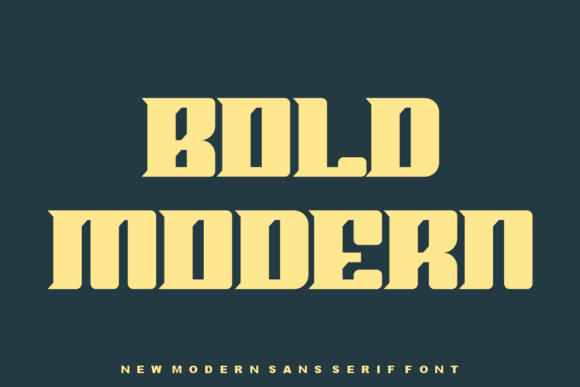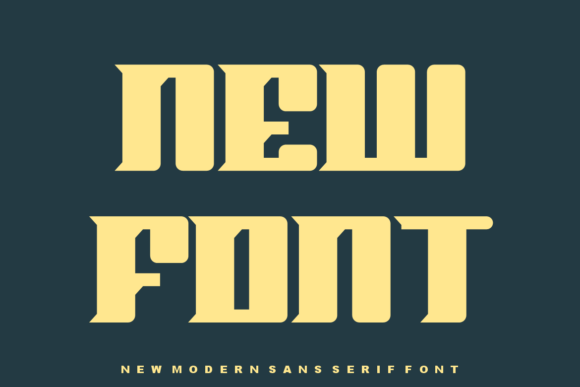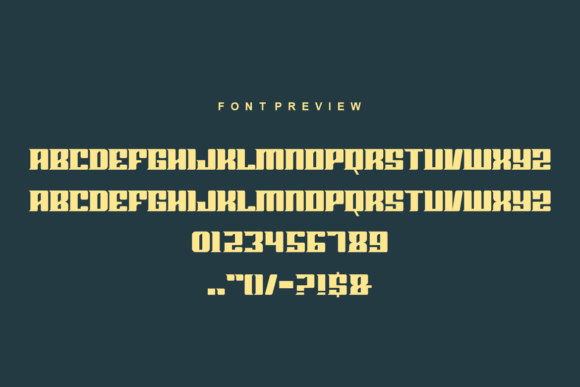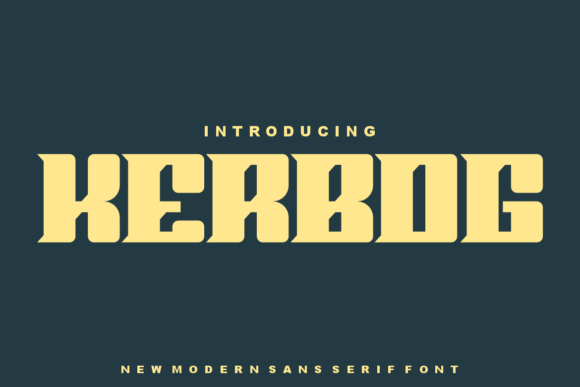
Introduction to Kerbog Font
Kerbog – Font Modern Font is a bold and authentic display font.
The font is suitable for any branding project like logo, t-shirt printing, and many more Outstanding in a wide range of contexts.
Key Features of Kerbog Font